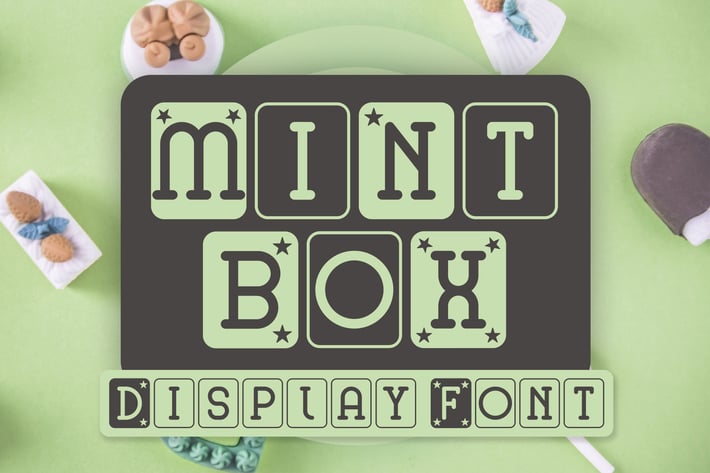
Mint Box - Display Font
Mint box is a new all caps playful font with boxed and stars variations.
Mint Box font will perfectly shows the positive vibes with the boxed round corners and stars.
Capitals, lowercase, numbers, symbols and some alternates.
Mint Box font will perfectly shows the positive vibes with the boxed round corners and stars.
Capitals, lowercase, numbers, symbols and some alternates.